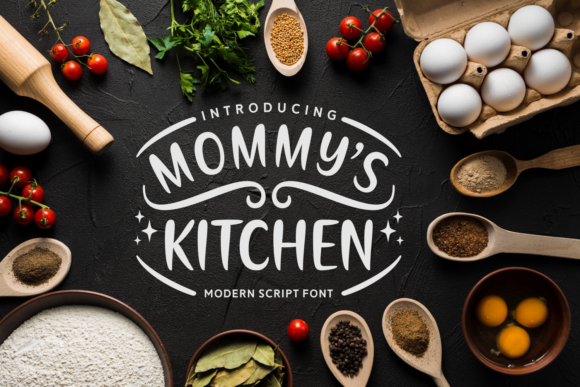
Feast your eyes on Mommy's Kitchen, a captivating script font crafted with love by Situjuh. This exquisite font possesses an elegant charm that will transform your creative projects into heartwarming masterpieces.
Imagine the joy of crafting personalized invitations, greeting cards, and social media posts that radiate a cozy, homey ambiance. With Mommy's Kitchen, your words will dance gracefully across the page, evoking a sense of nostalgia and warmth in the hearts of your readers.
Step into a culinary haven where Mommy's Kitchen reigns supreme. This font is tailor-made for food-related projects, adding a touch of delectable charm to menus, recipe books, and food packaging. Its playful curves and charming details will make your culinary creations irresistible, leaving your audience craving more.
Unleash your creativity and embark on a whimsical journey with Mommy's Kitchen. The possibilities are endless, from whimsical posters and enchanting flyers to heartwarming children's books and captivating blog designs. Its versatility knows no bounds, adapting seamlessly to any project you throw its way.